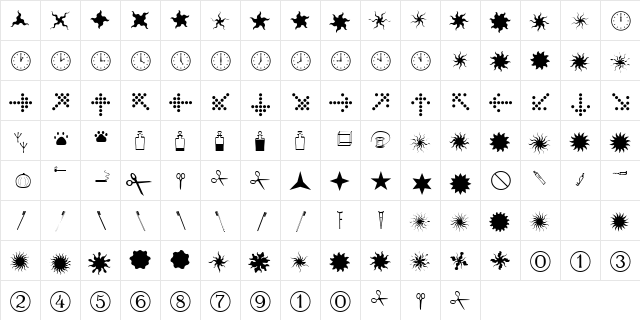
XIngDingLeftover Regular
Design Context for XIngDingLeftover Typeface
XIngDingLeftover is a composed and adaptable typeface that performs quietly and consistently across a wide range of design contexts.